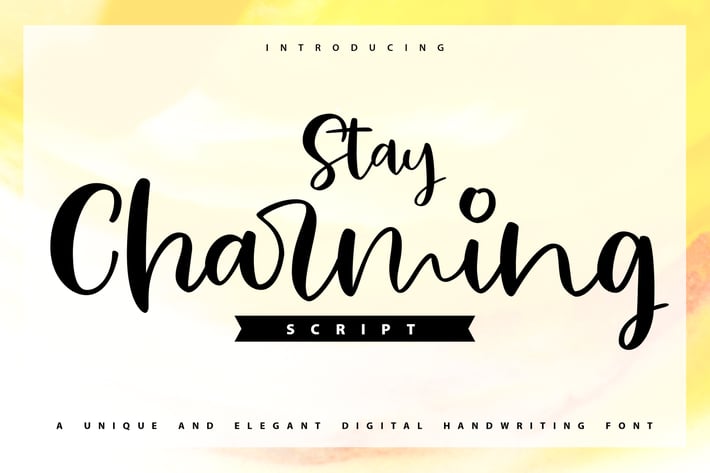
Stay Charming | Script Handwriting Font
Stay Charming | Script Handwriting Font with a calligraphy style, So beautiful on invitation like greeting cards, branding materials, business cards, quotes, posters, and more!